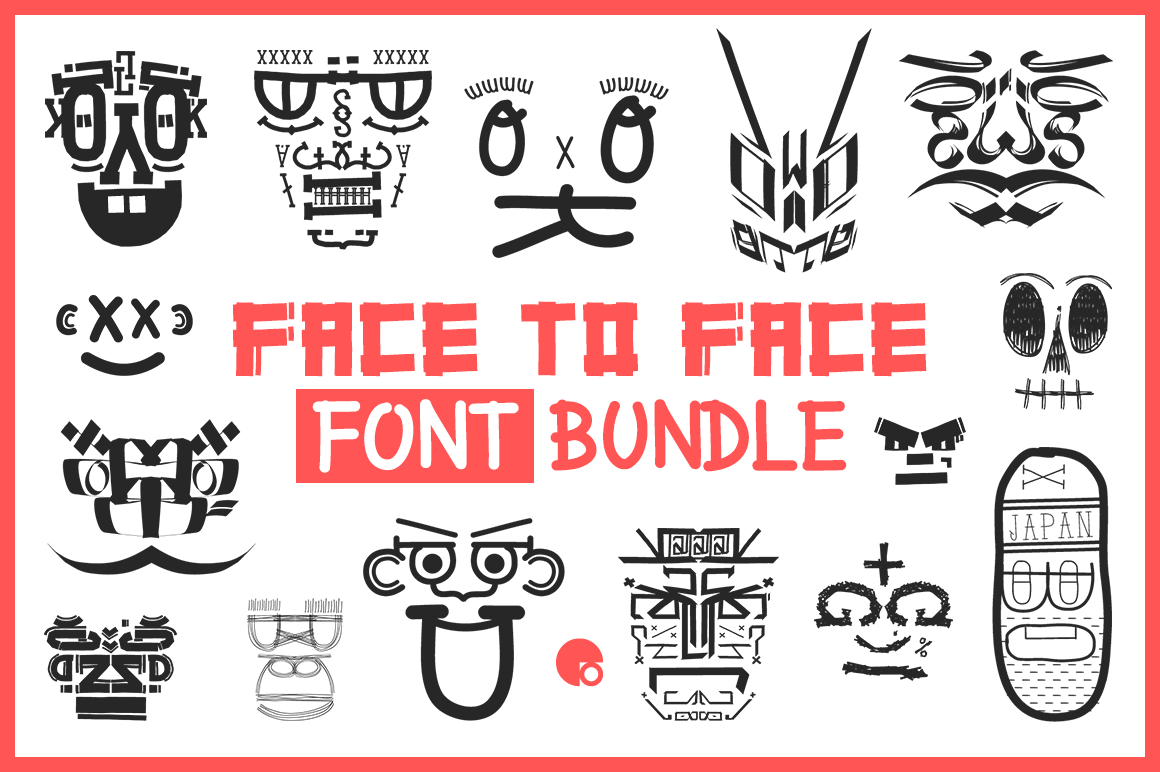
Face to Face Handdrawn Font bundle
I like to explore my font more graphically than just write a word or paragraph. I like Arabic calligraphy for this, interpreted graphically a word. I begin to create faces with my typo, fifteen interpretations of fifteen hand drawn typography.